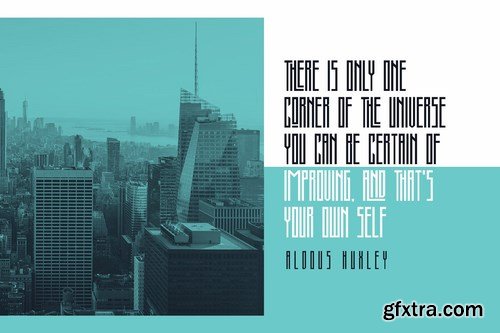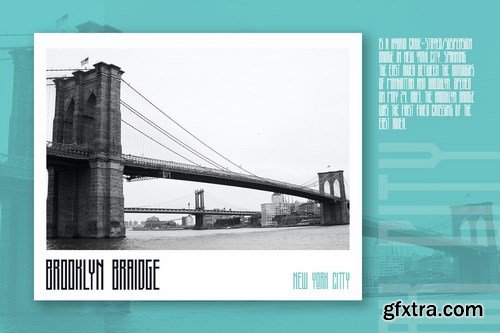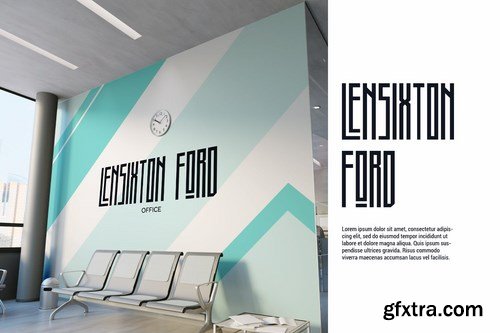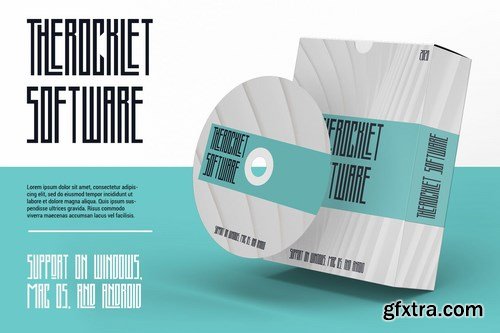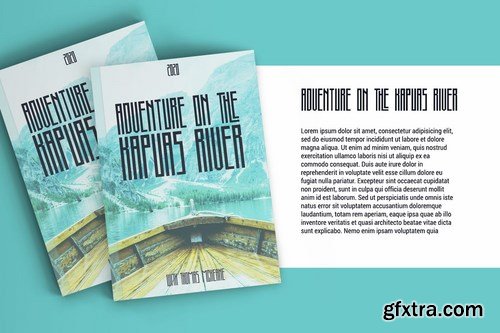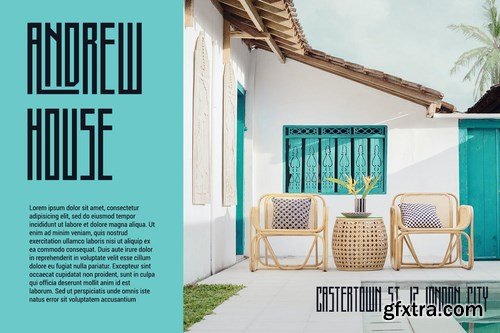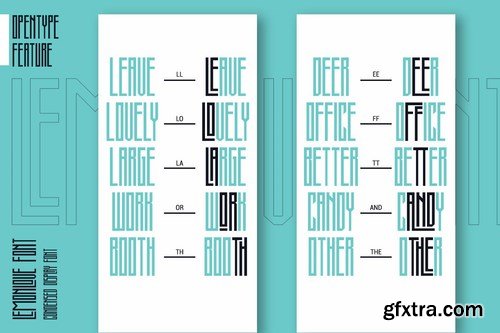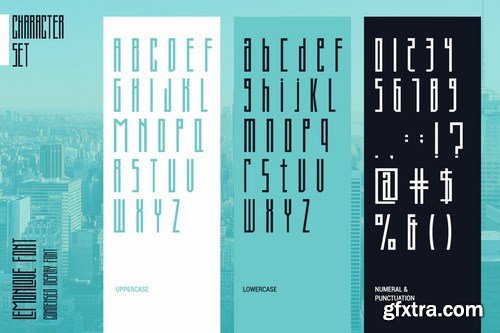
CM - Lemonlove 5685935
Lemonlove is a condensed display font. This font come with modern themes. It matches applies in some designs such as the logotype, brand, packaging, quotes, t-shirt, cover book and more custom design.